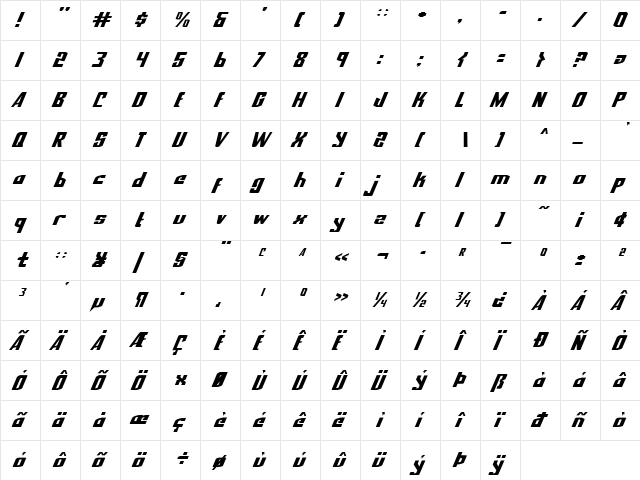
National Express Italic Italic
Design Context for National Express Italic Typeface
National Express Italic offers clean, dependable letterforms without strong stylistic allegiance, making it a practical choice for designers who need flexibility. The dynamic lean of this cut emphasises speed and emphasis in any layout.
Pro Tip: Use National Express Italic for emphasis, pull quotes, and subheadings where its slanted energy can add rhythm to the layout.